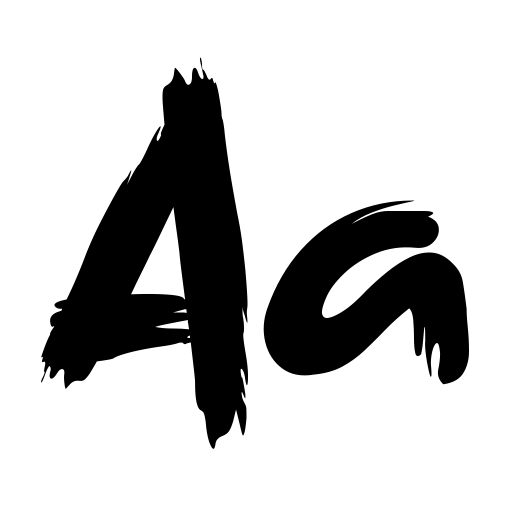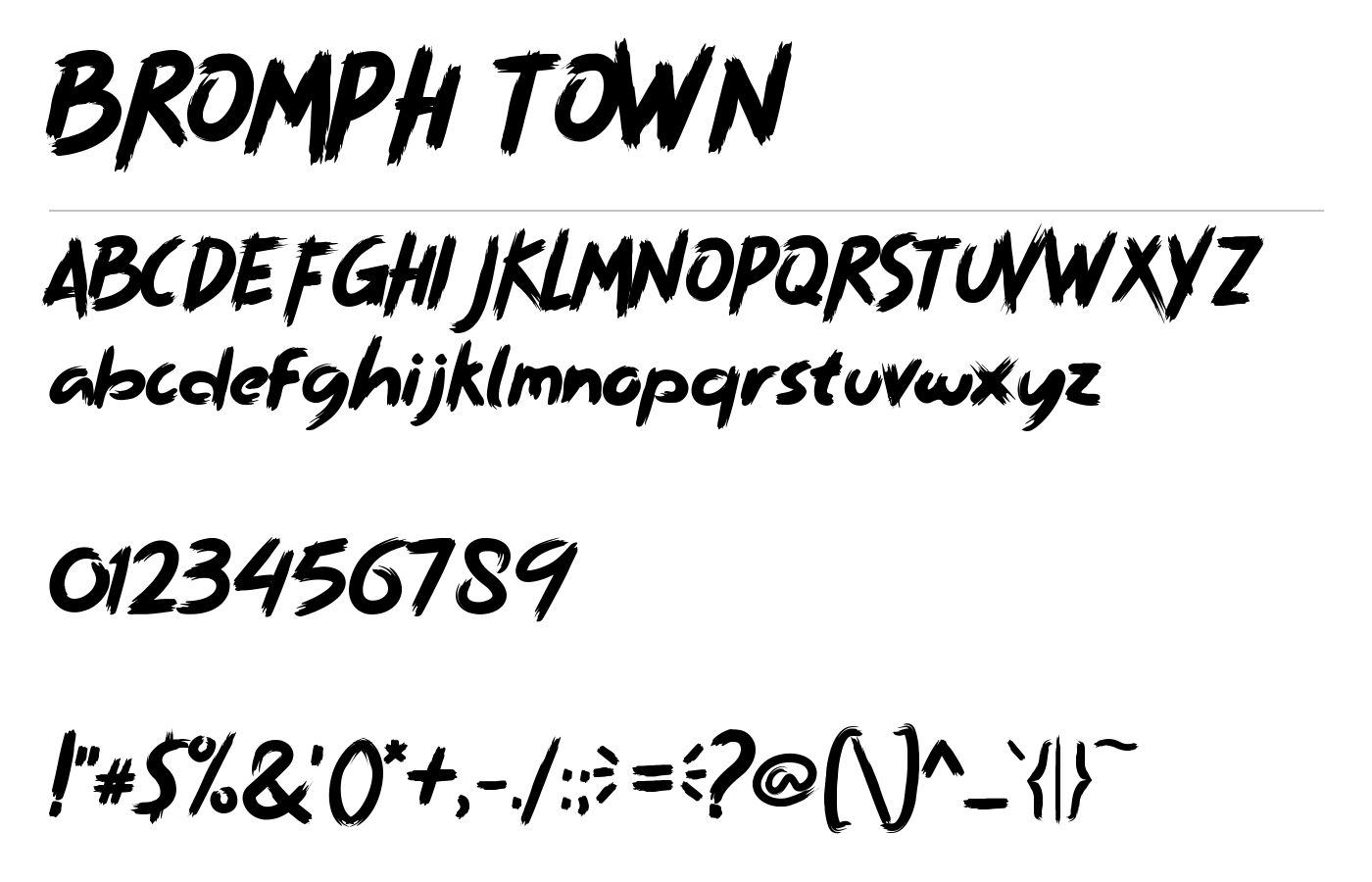
BROMPH TOWN is a bold, expressive brush-style font that combines energetic strokes with a slightly rough, hand-painted texture. Its lively and informal character makes it ideal for dynamic headlines, logos, and creative projects that want to convey a sense of movement and spontaneity. This font works well in settings that require a casual yet impactful visual presence, such as posters, packaging, and branding with a playful or artistic edge.
BROMPH TOWN Font
About BROMPH TOWN Font
| Font family | BROMPH TOWN Font |